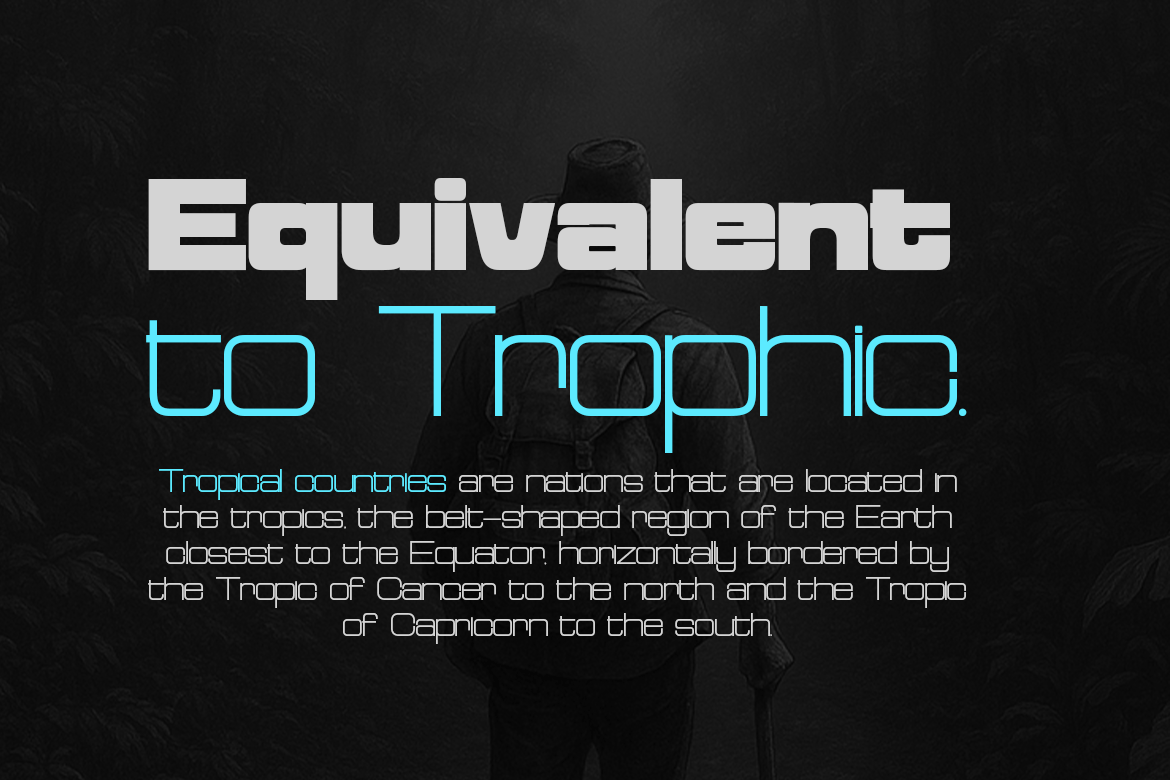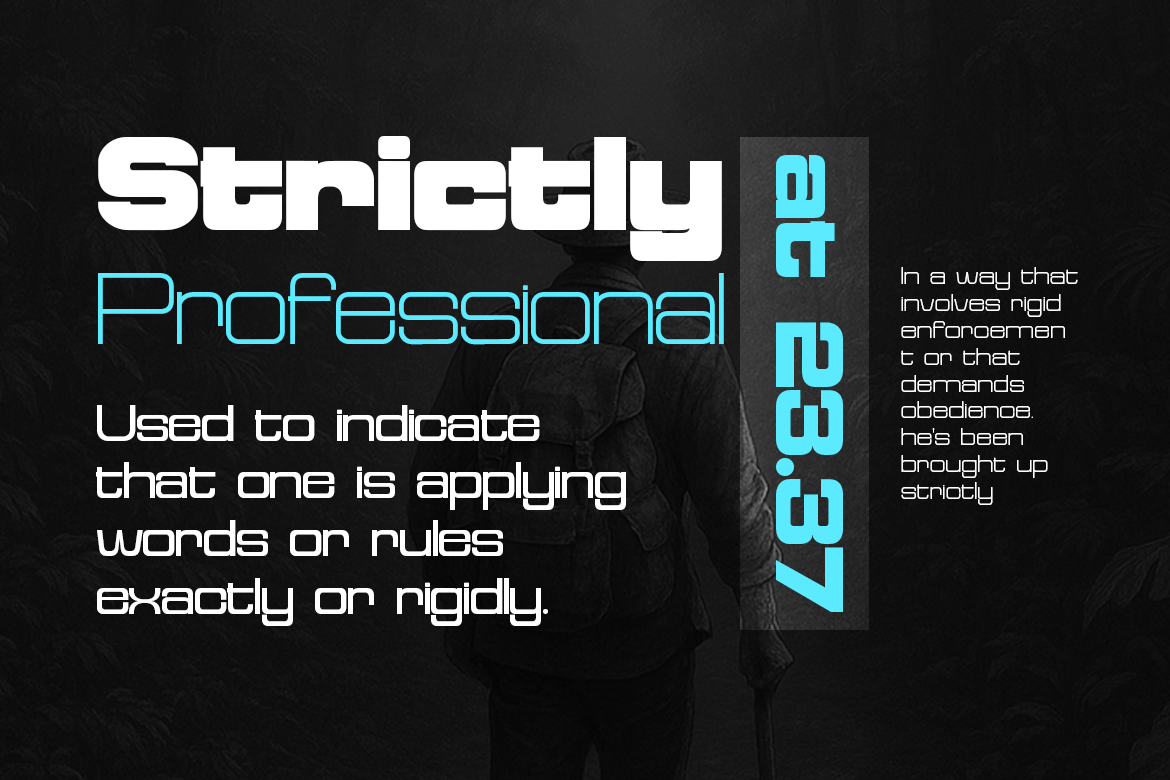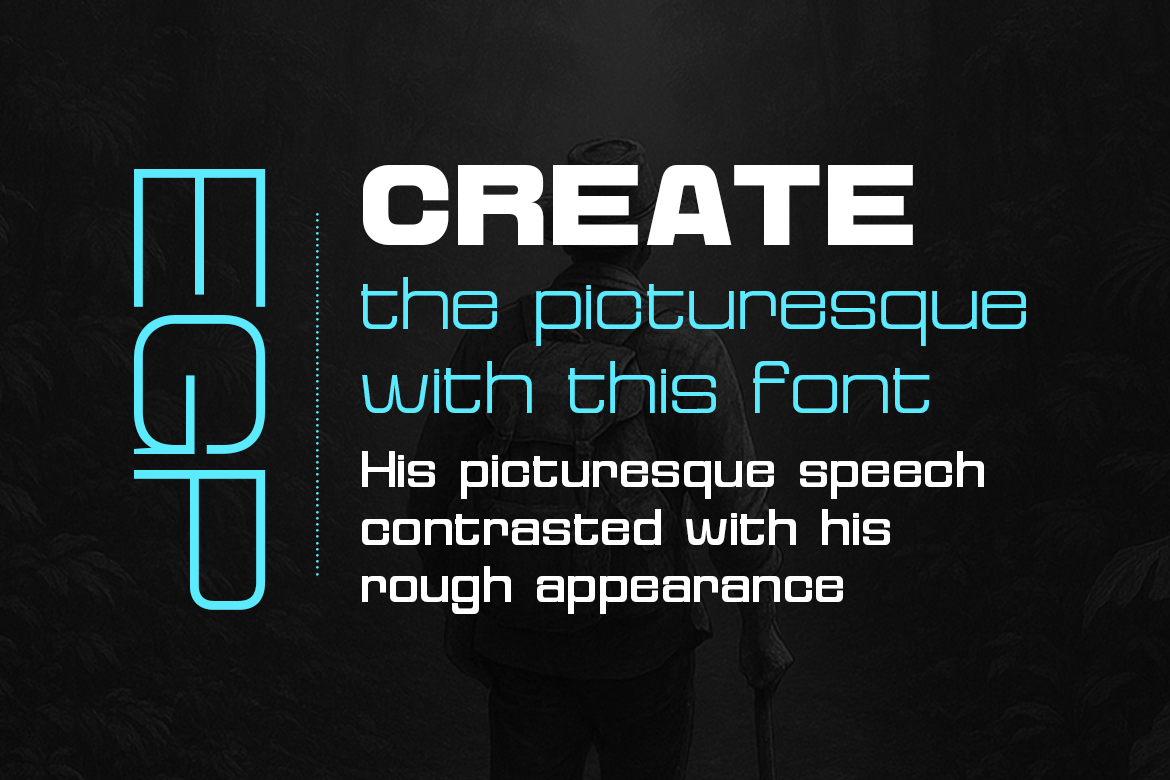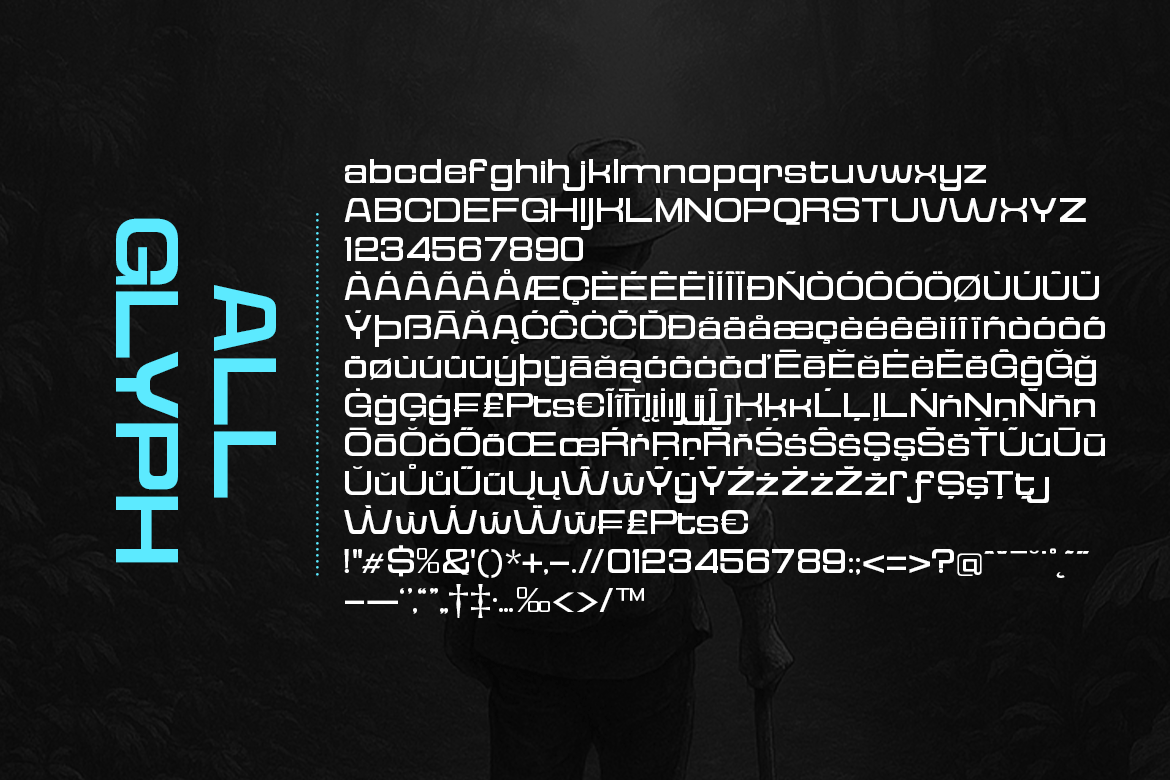
Reflect of Strictly Expanded
Reflect of Strictly Expanded — 12 Upright Weights
Reflect of Strictly Expanded brings strong visual presence through its broad, commanding letterforms. The expanded width feels bold, open, and confident — perfect for designs that require a dramatic and expressive aesthetic.
Wide proportions and generous horizontal flow give this style a powerful stance, making every word feel important and visually anchored.
Best For
- Cinematic titles and sci-fi themes
- High-impact display typography
- Large posters and advertising
- Wordmarks and logo identities
- Futuristic and modern graphic design
The Expanded family comes with 12 upright weights, from Thin to Extra Black, allowing designers to explore dynamic visual contrasts while maintaining a polished, cohesive structure.
The Reflect of Strictly Expanded font family includes 344 glyphs.